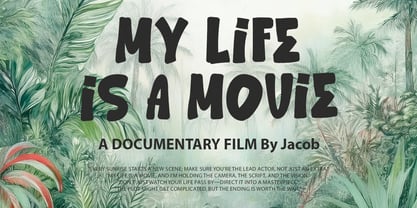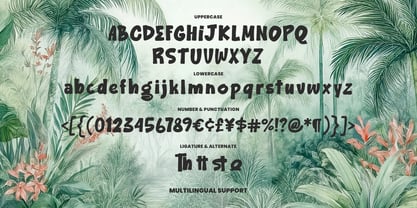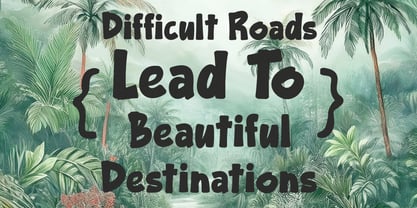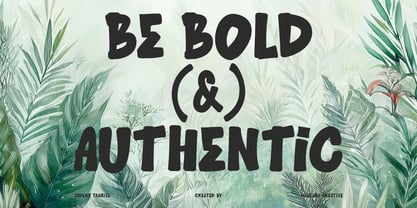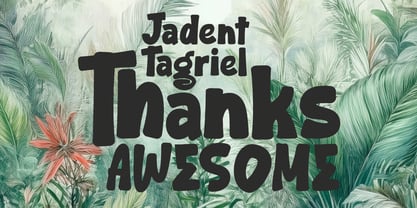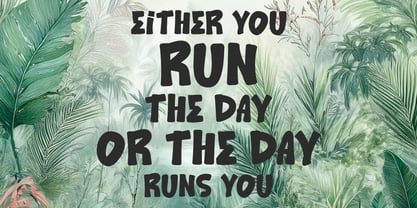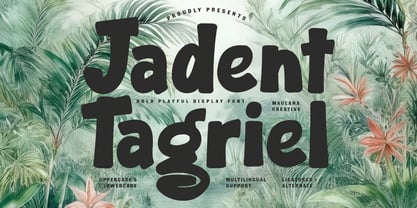
MC Jadent Tagriel
by Maulana Creative
The MC Jadent Tagriel Font Family was designed by Gilang Maulana and published by Maulana Creative. MC Jadent Tagriel contains 1 styles. More about this family
Jadent Tagriel is a bold and playful display font designed to bring a vibrant, energetic feel to any creative project. Featuring a unique hand-drawn aesthetic with soft, rounded edges and thick strokes, this typeface excels in headlines, branding, and social media graphics. Its friendly yet impactful presence makes it ideal for children's books, poster designs, and artistic packaging. The font includes uppercase and lowercase characters, numbers, punctuation, and a variety of ligatures and alternates for a truly customized look.
Designers: Gilang Maulana
Foundry: Maulana Creative